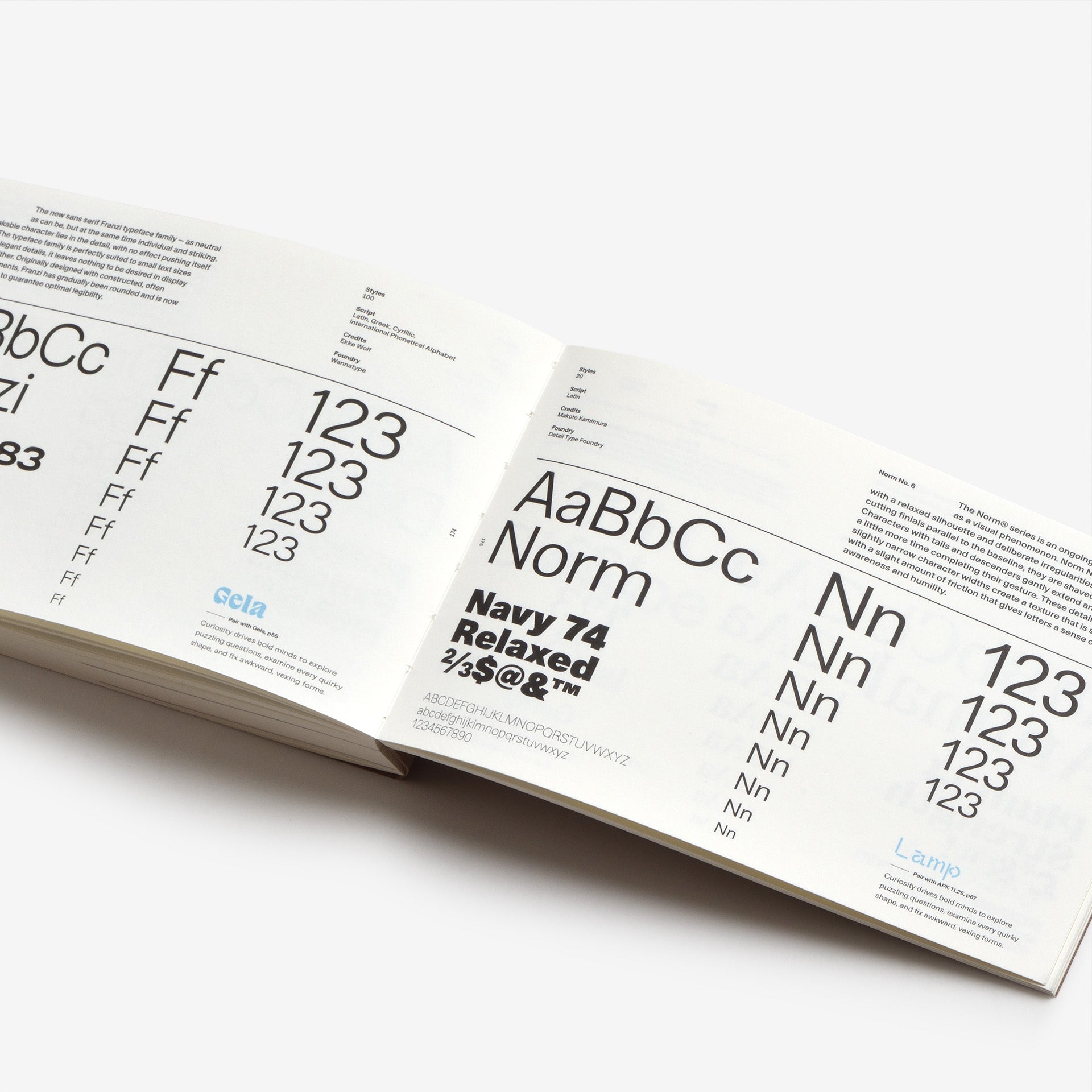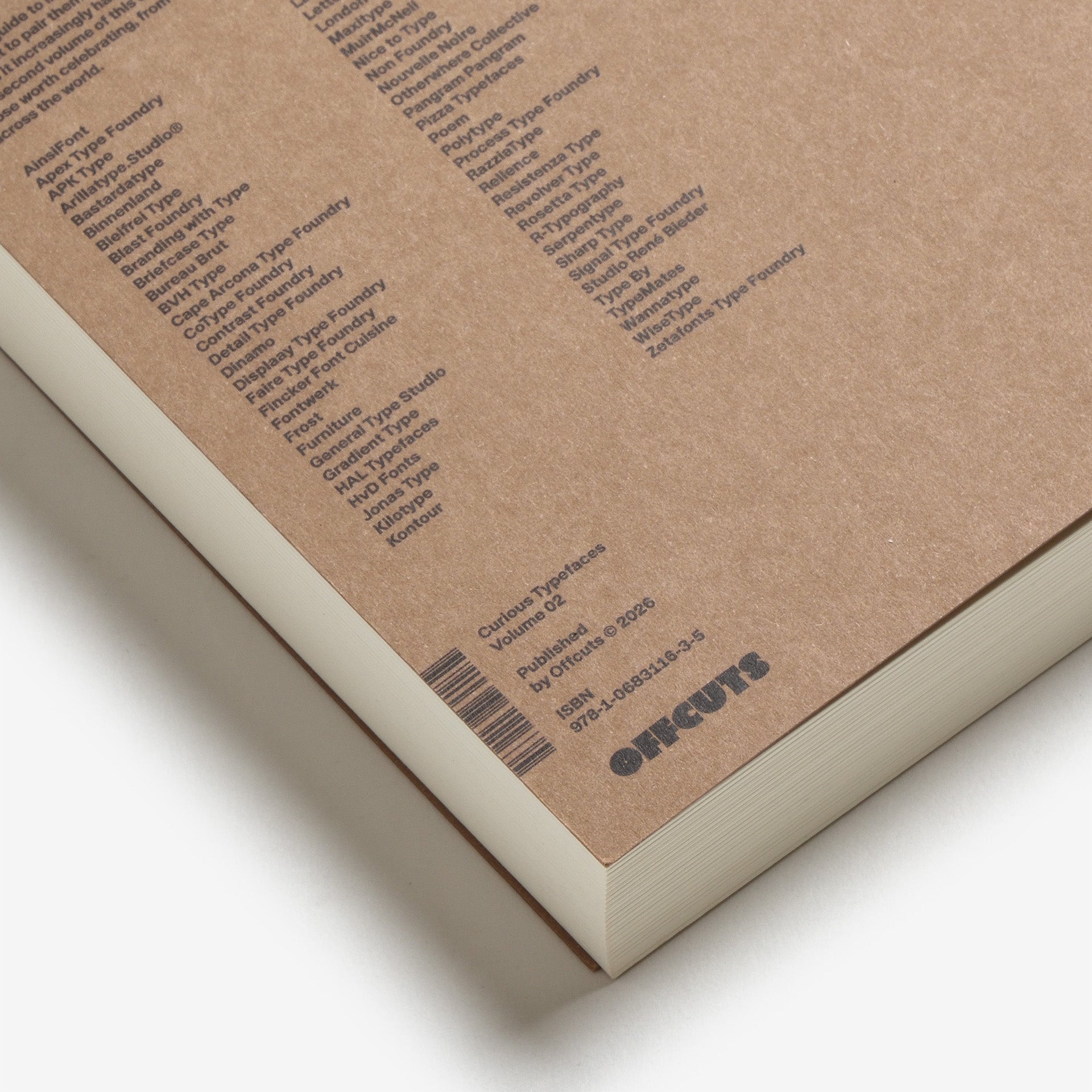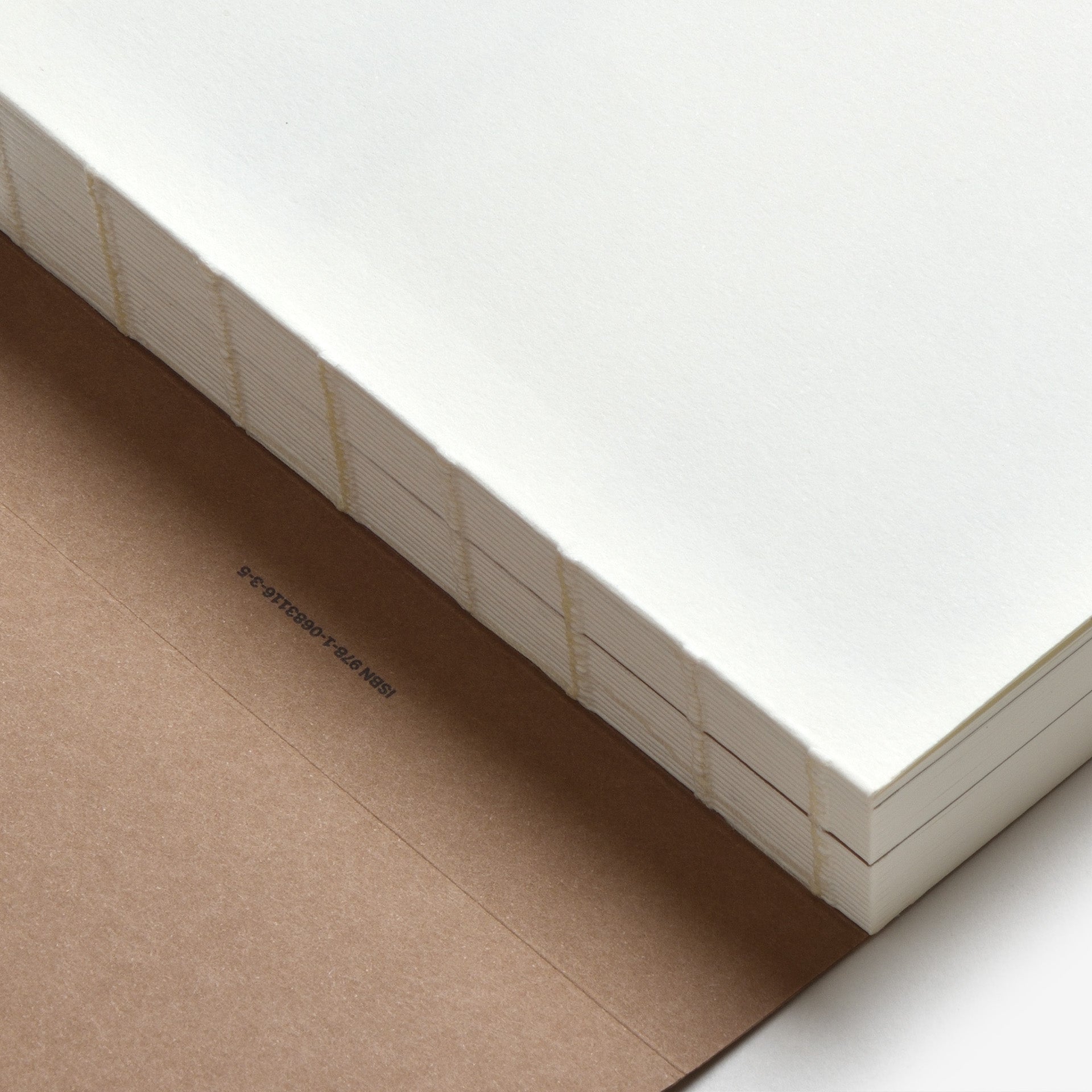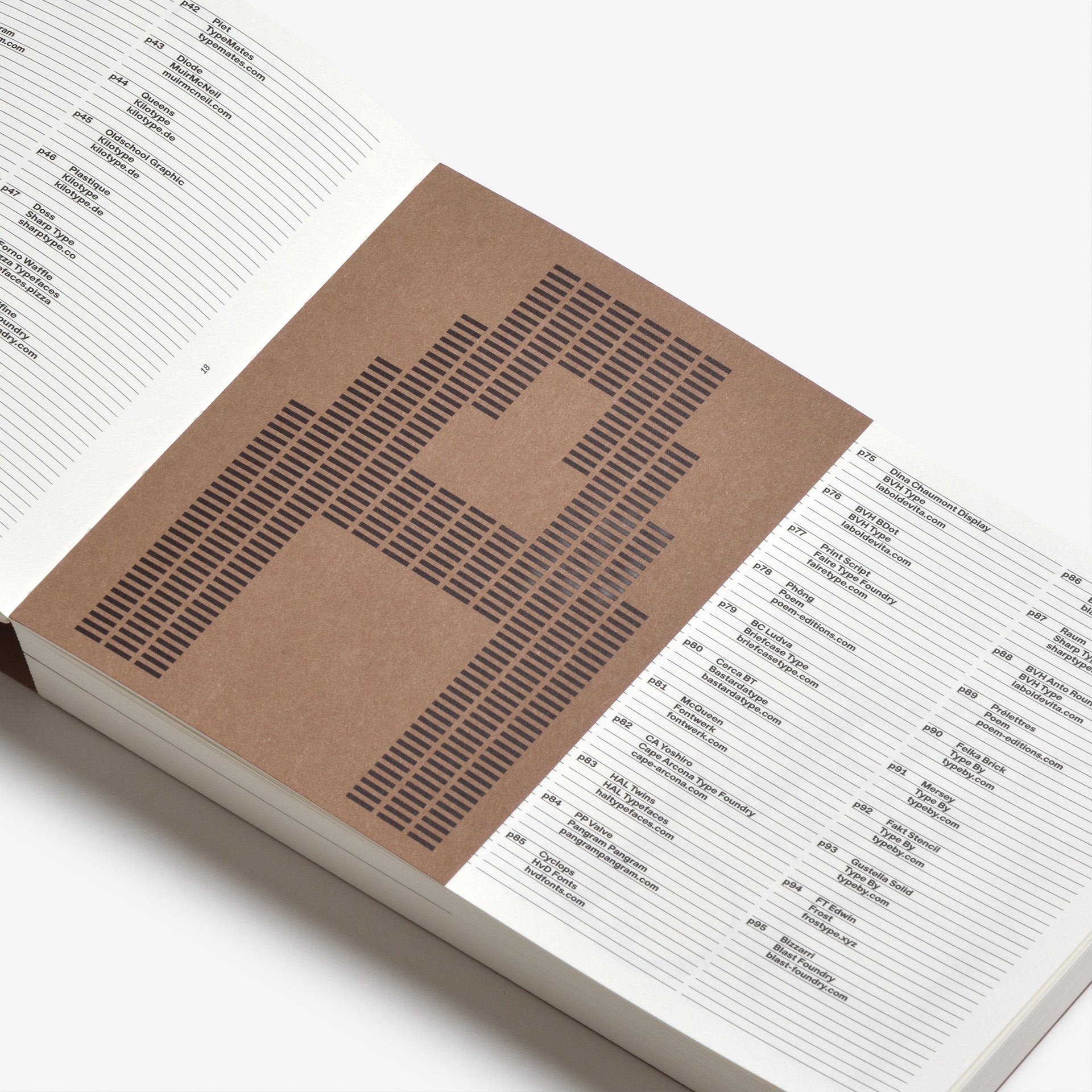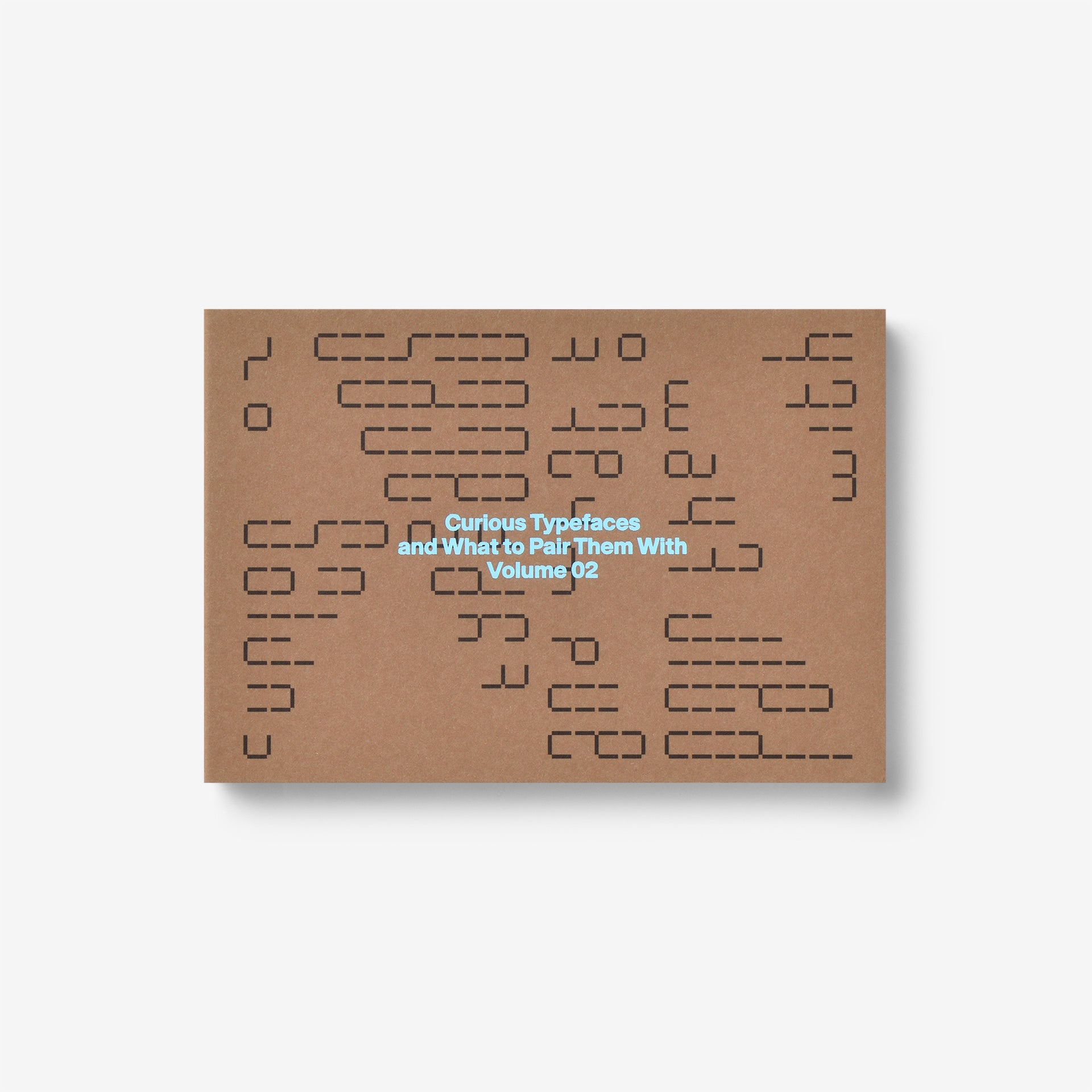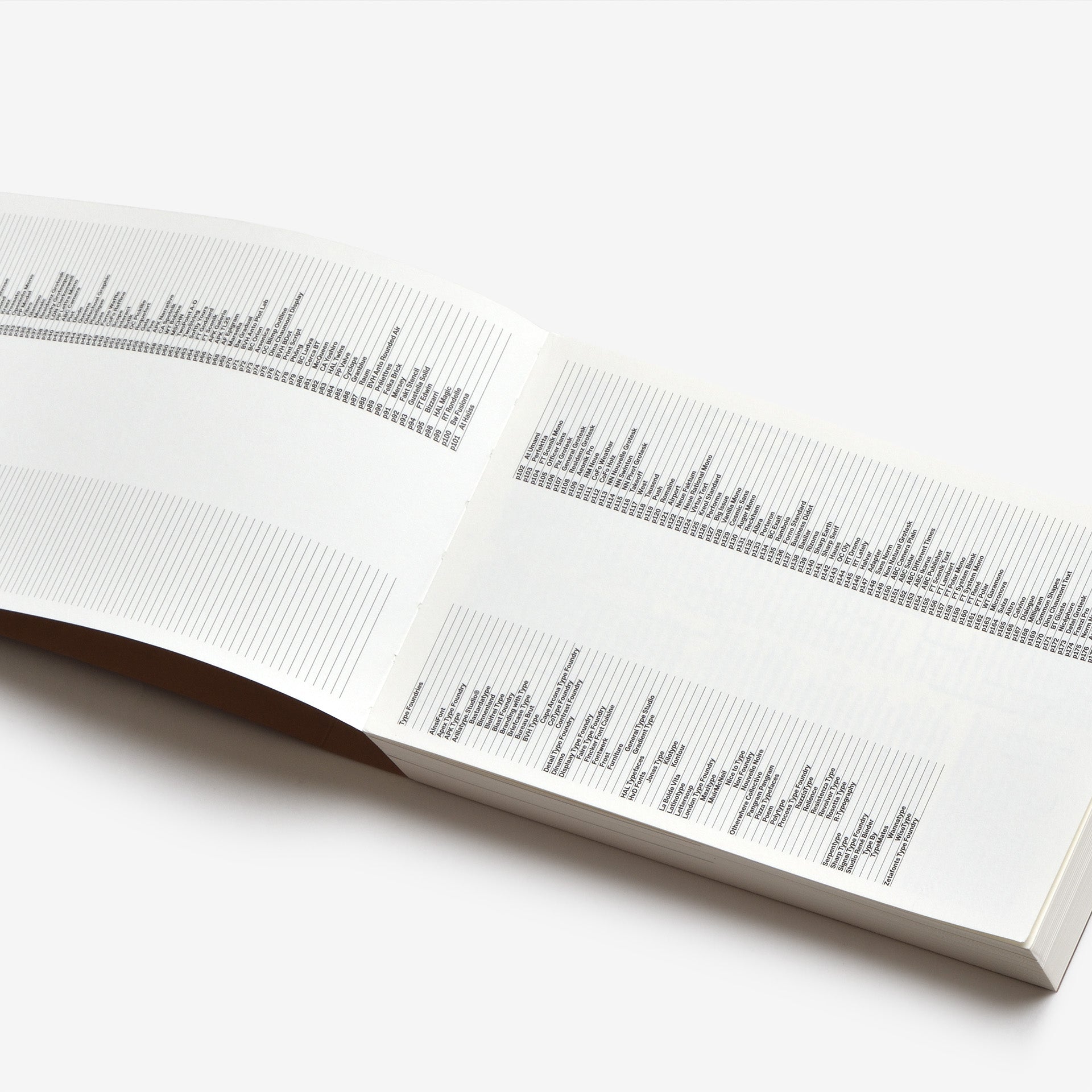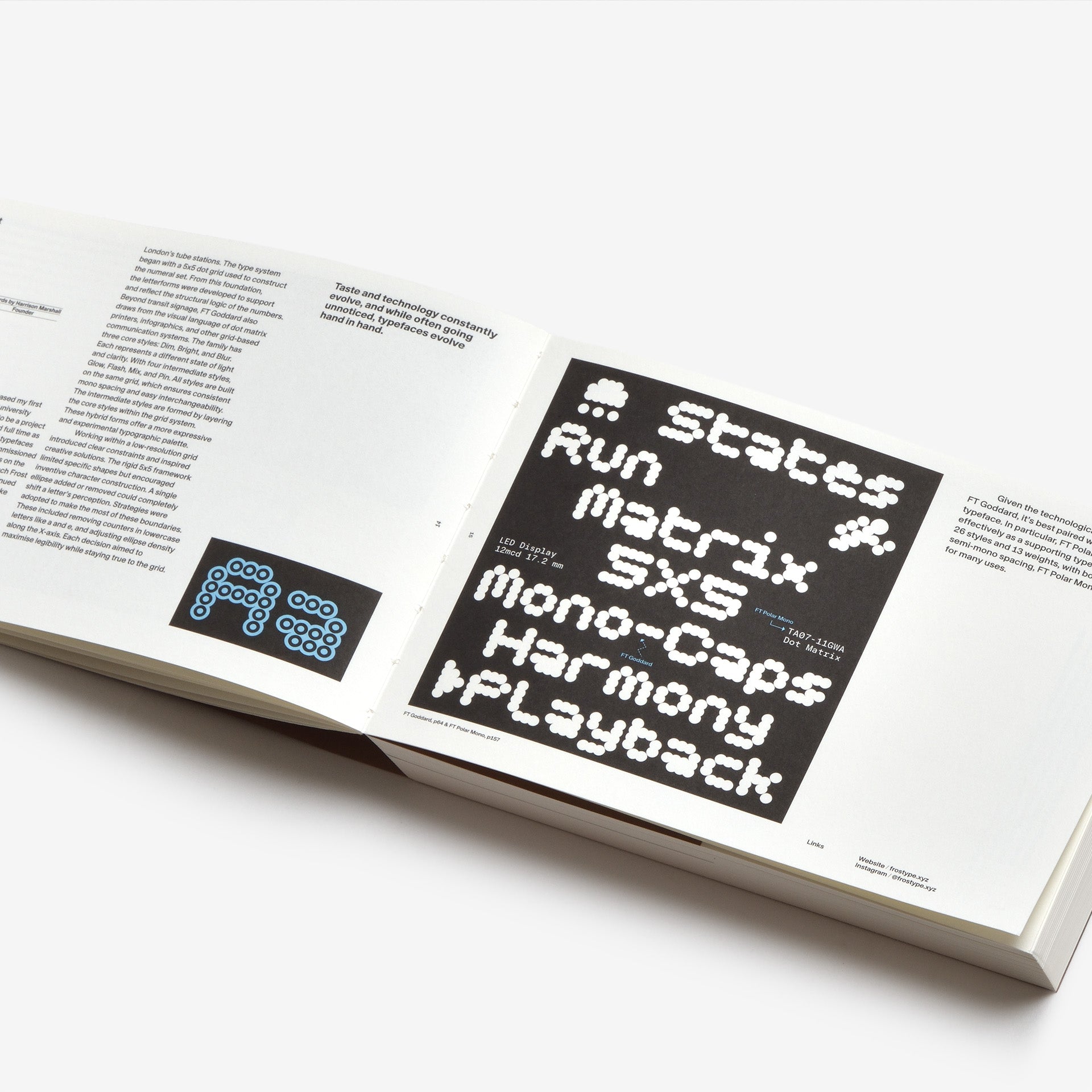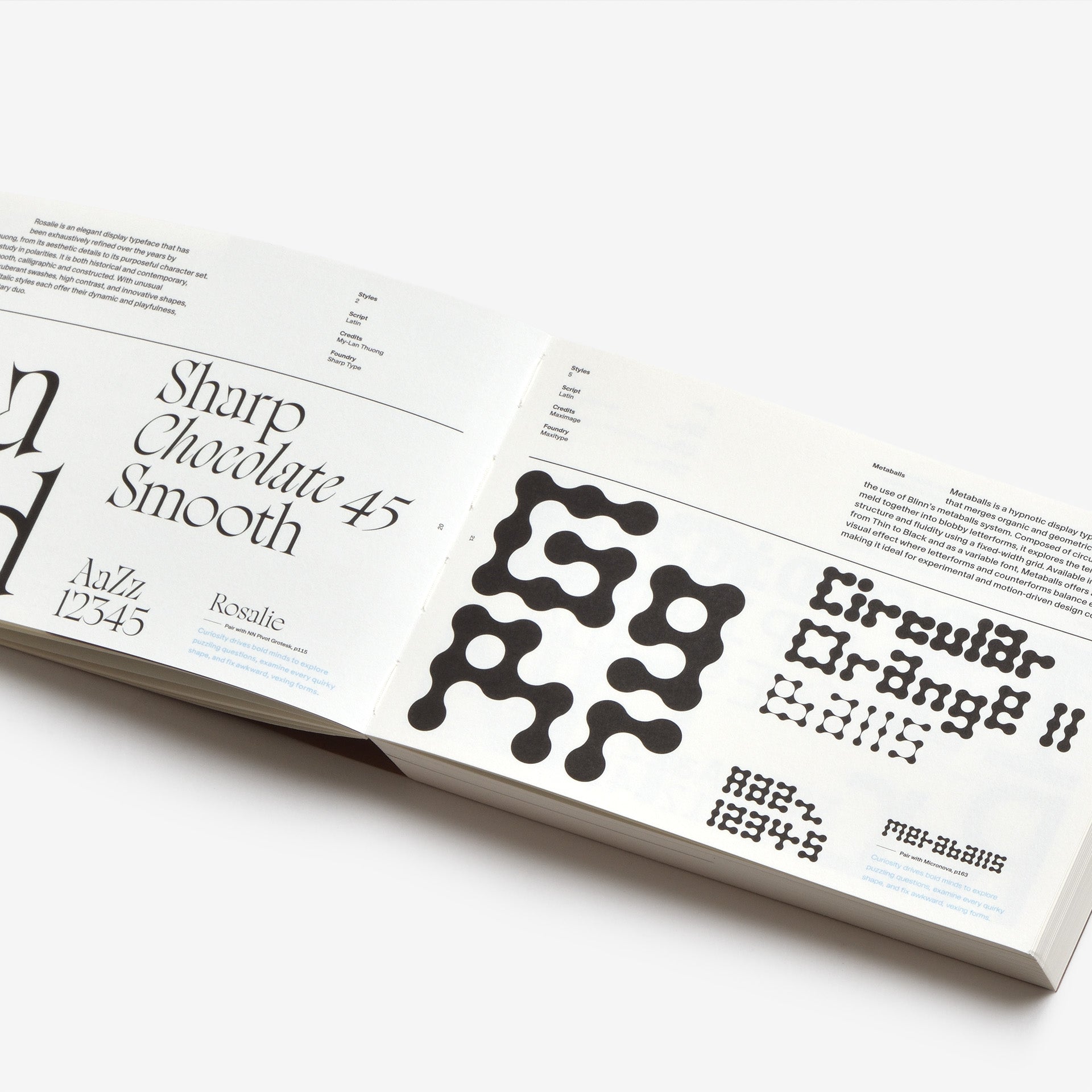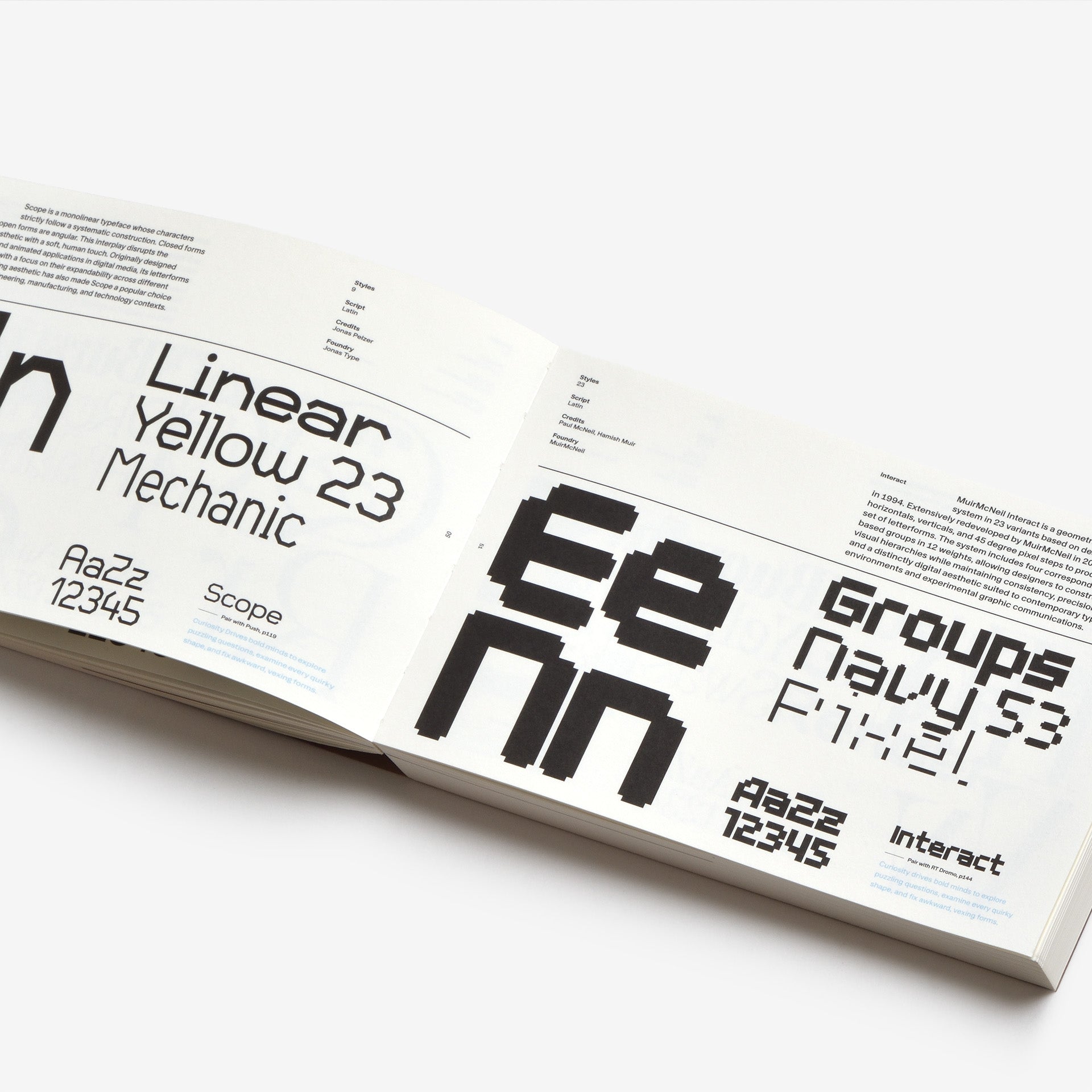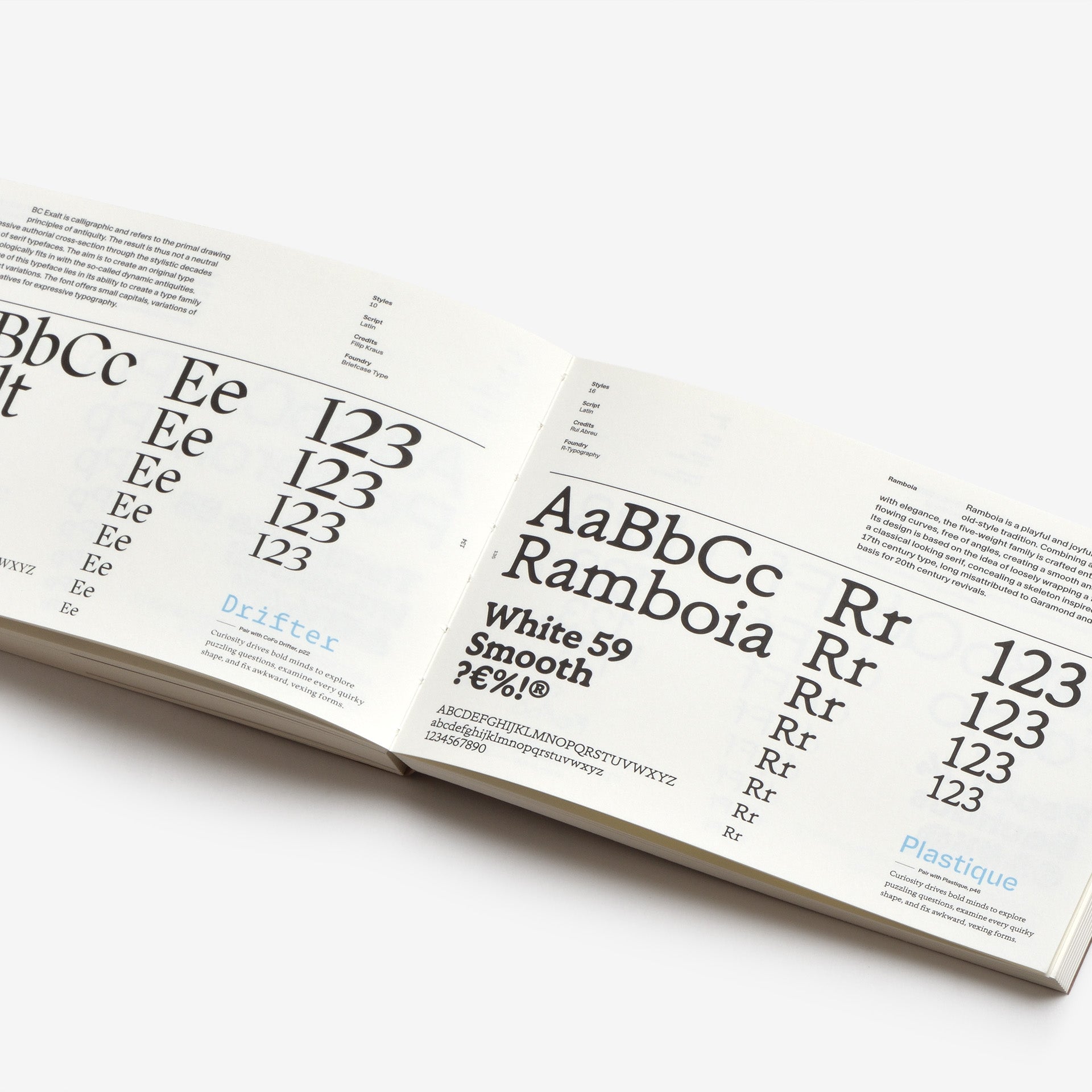
Curious Typefaces, Volume 2
A design guide to interesting, experimental, curious typefaces and what to pair them with. A forever growing world of typefaces makes it increasingly harder to remember all of your favourites. The second volume of this collection showcases just a few of those worth celebrating, from renowned type foundries from across the world.
This archive is a pairing guide for using curious alongside conventional typefaces. Suggesting how to use experimental typefaces in more practical, day-to-day uses. Bringing together some typefaces that complement each other, some that contrast, and some that have been designed in tandem for this exact purpose.